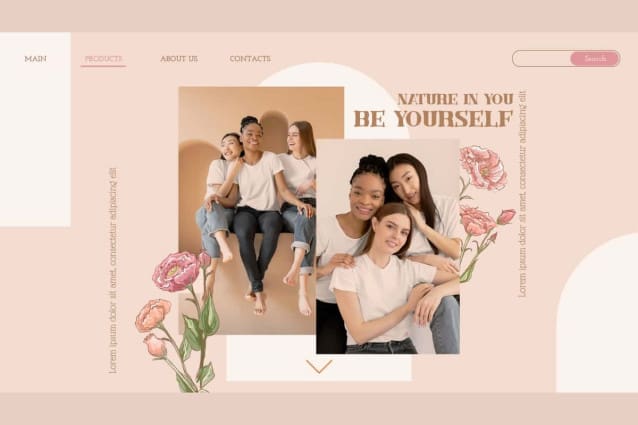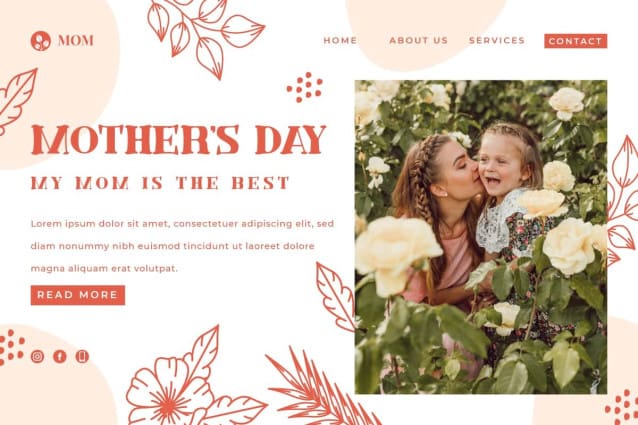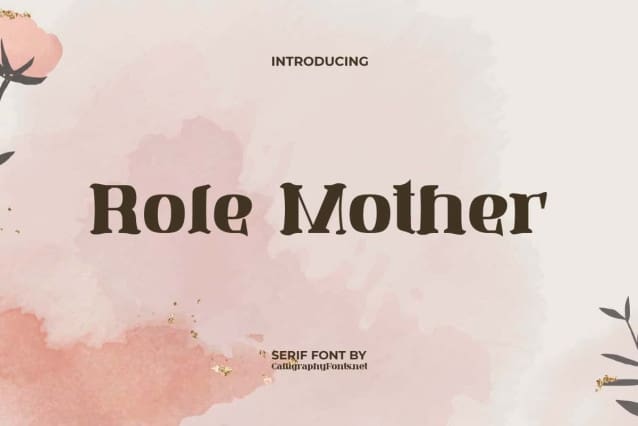
Role Mother Font
Role Mother Font is a bold elegant serif display font with a vintage feel that is designed in a modern way. This type of font is carefully crafted so that it is perfect for all your design needs. This type of font is very suitable for blogs, brochures, invitations, label, quote, social media feed, stationery, stickers, watermarks, websites, tags, and more.
Role Mother Font is an authentic vintage style serif that is made special with its rounded edges and charming curves. This font brings back those thick retro typography to the present era. You can use it for accessories and gifts, florist, graphic design, handicrafts, home furniture, photography, restaurant, salon, spa, printing, publishing, etc.